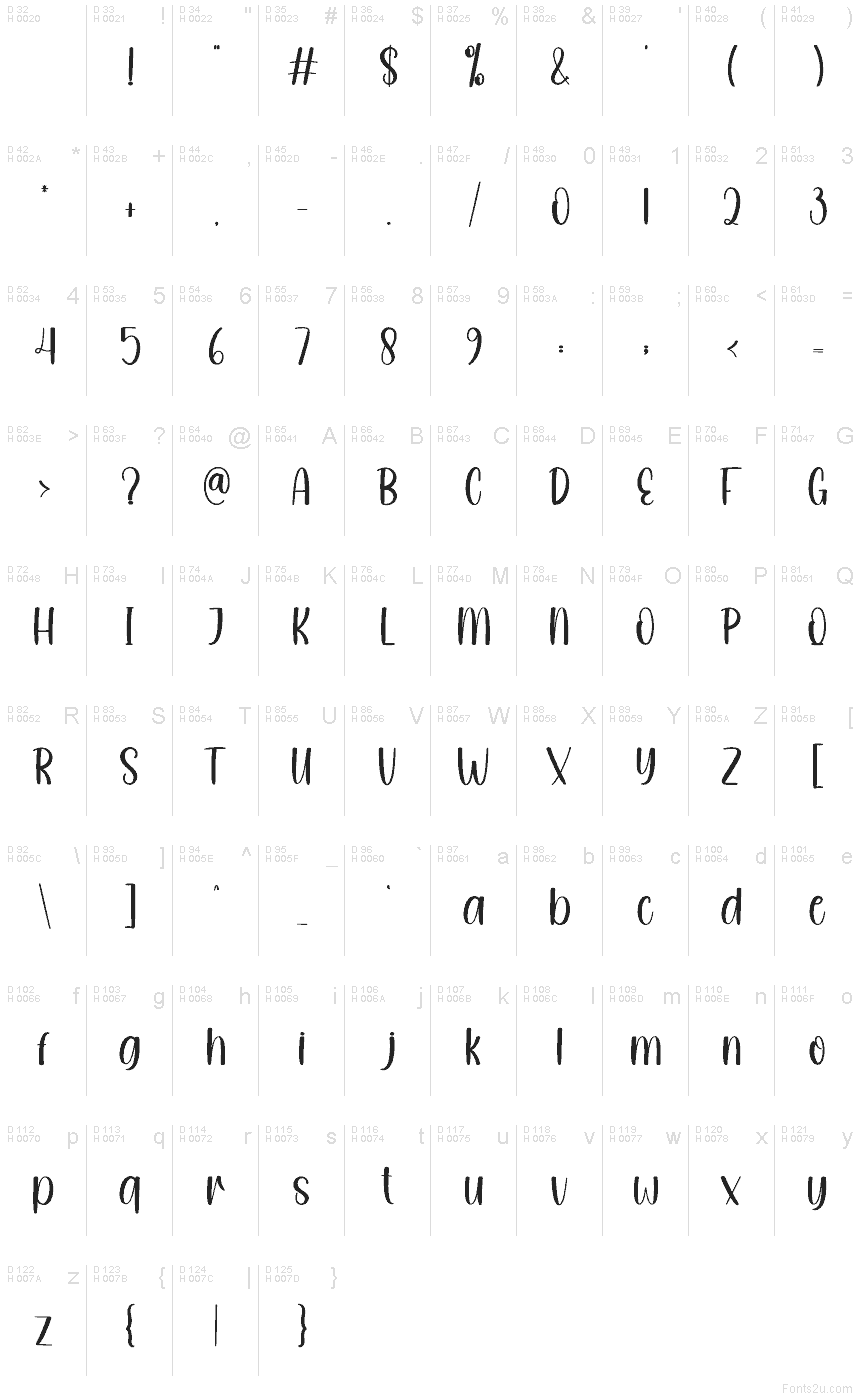
Baloon Time
Baloon Time font designed by Andi Moz is a condensed handwritten font with an engaging modern look. Handwritten letters convey casualness in all their wonder. Obvious friendliness and a contemporary style characterize this typeface ideal for diverse print and graphic design projects.
Use this free handwritten font to create friendly advertisements, fun flyers, interactive posters, social media page covers, or story posts. The bold and curvy letters will also make great headings for websites and book/magazine publications.